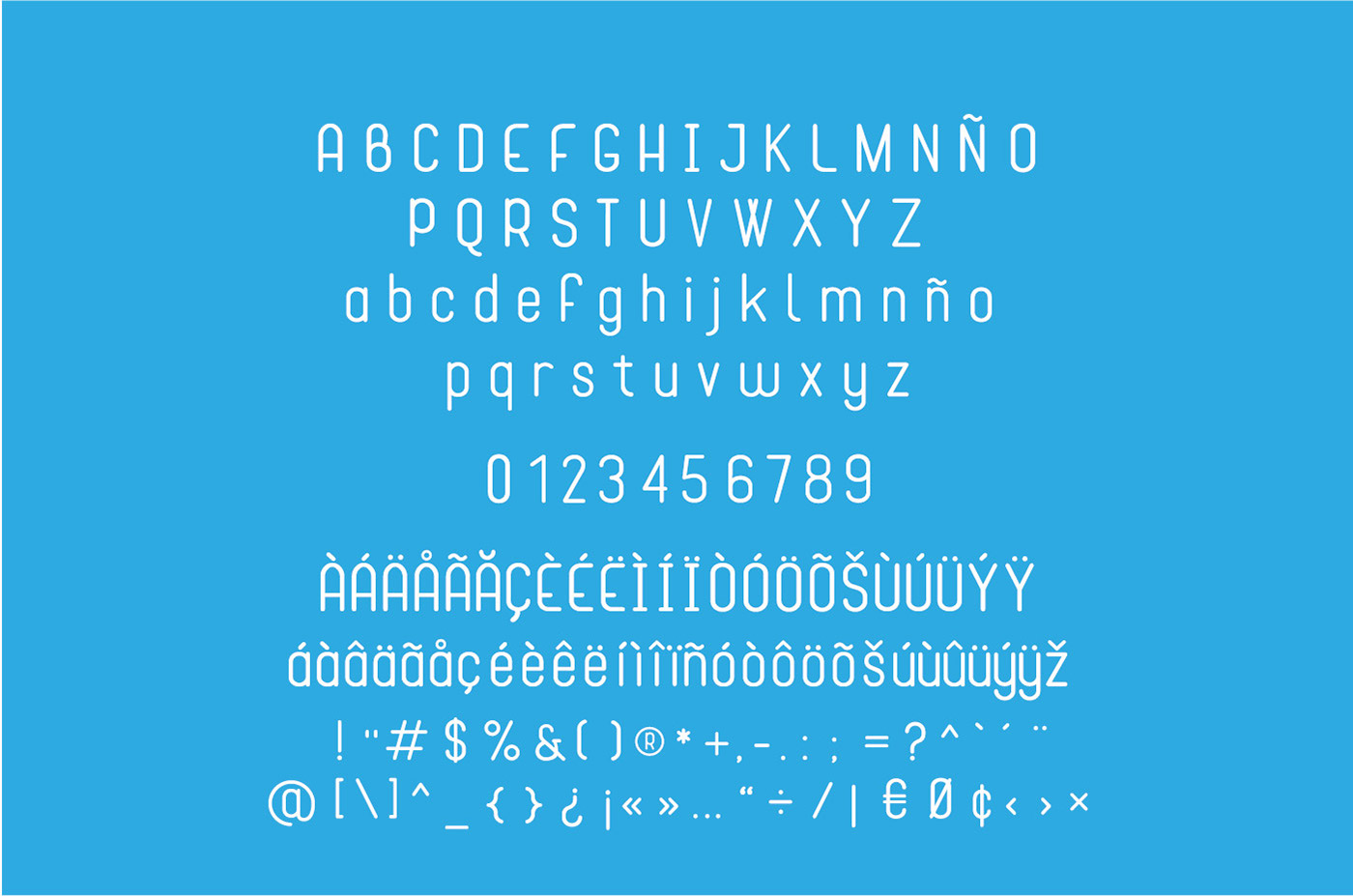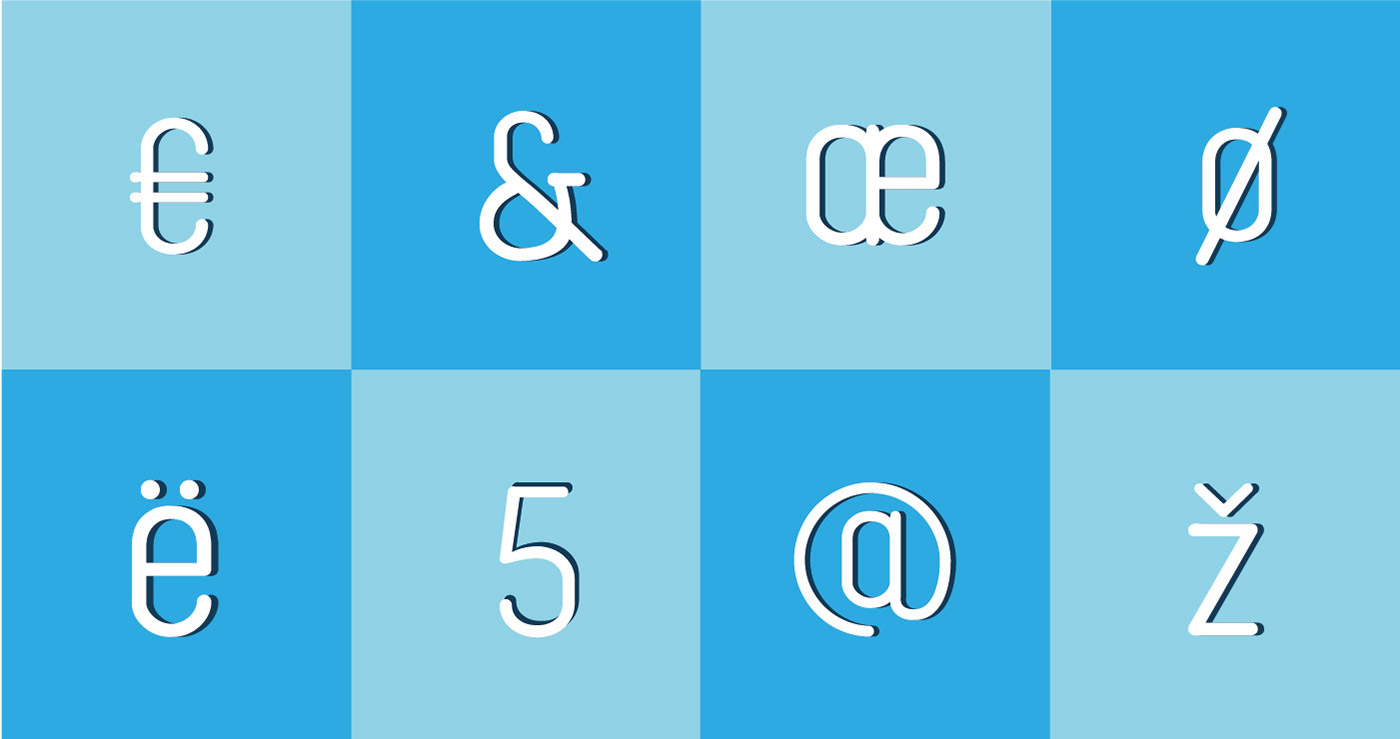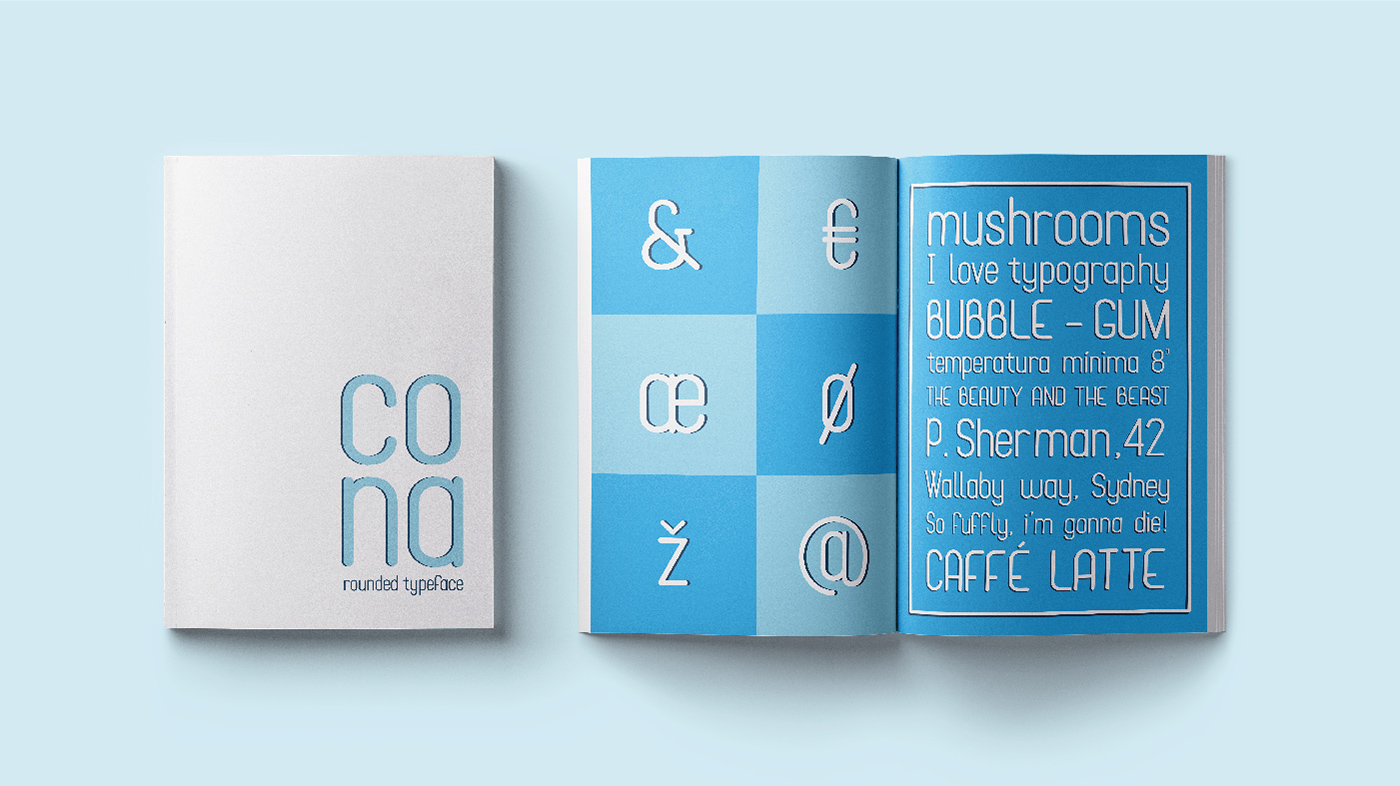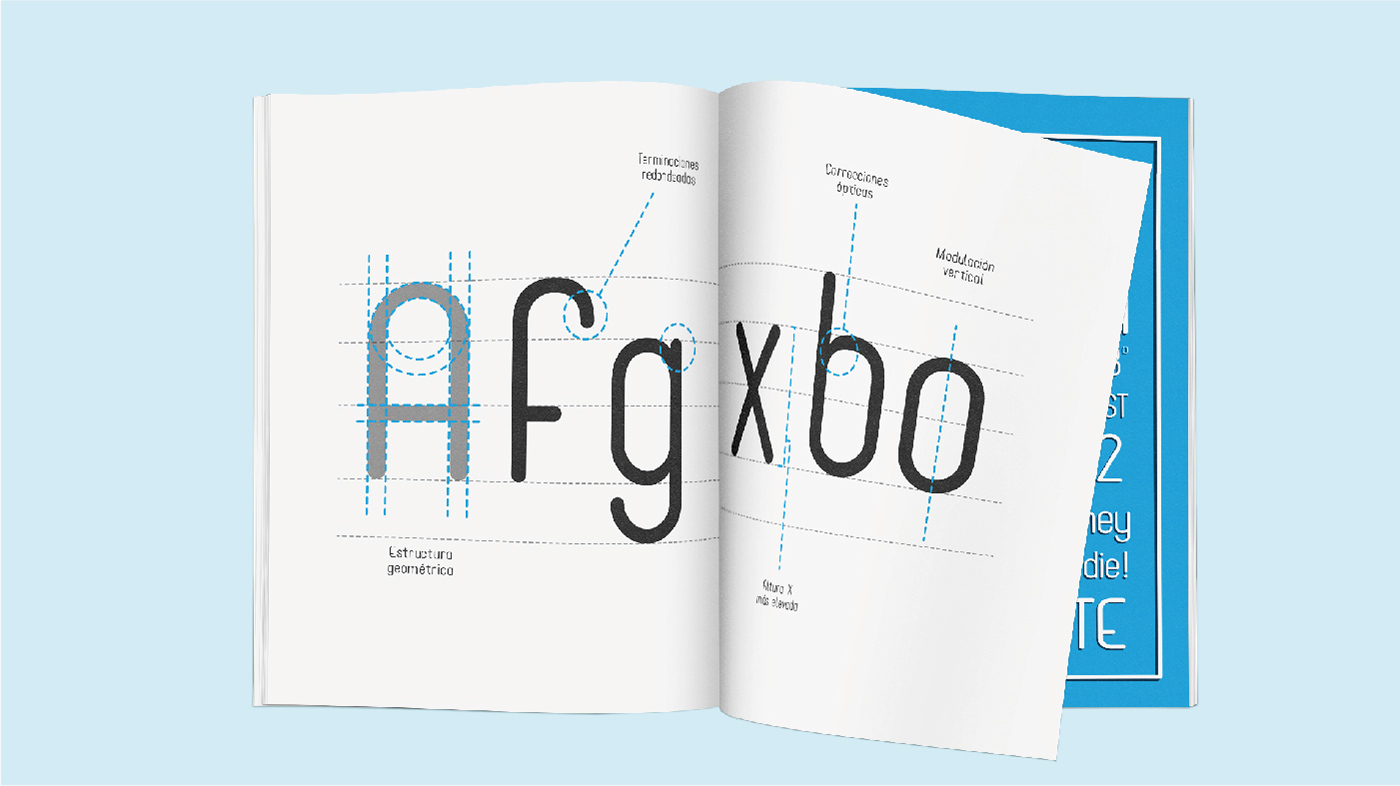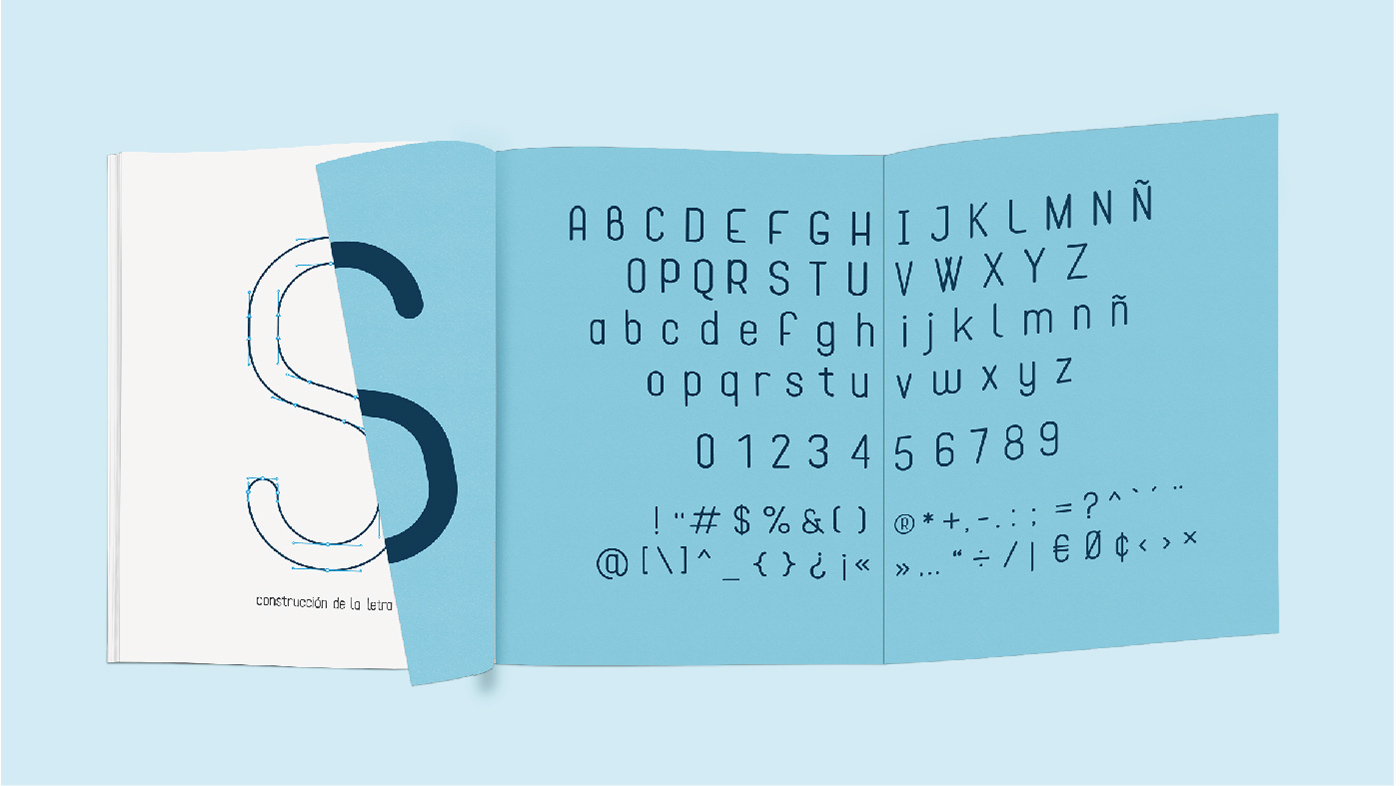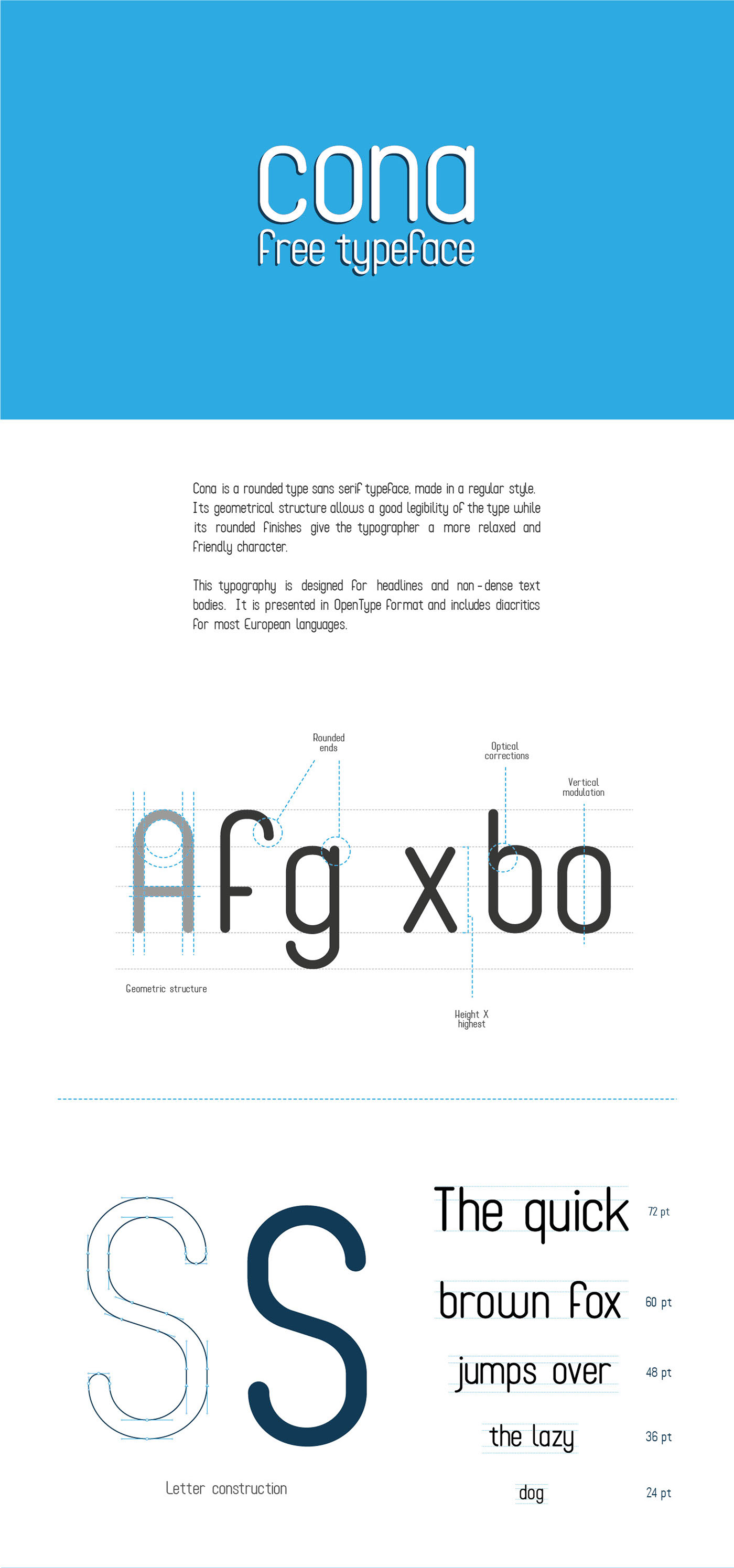
Cona | Free typeface
Introduces a new sans serif typeface. If you are a professional fonts collector, you will find this typography amazing and impressive. lntroducing Cona Typeface! Cona designed and shared by Marta Coronado. Cona is a rounded type sans serif typeface, made in a regular style. Its geometrical structure allows a good legibility of the type while its rounded finishes give the typographer a more relaxed and friendly character. This typography is designed for headlines and non-dense text bodies. It is presented in OpenType format and includes diacritics for most European languages.